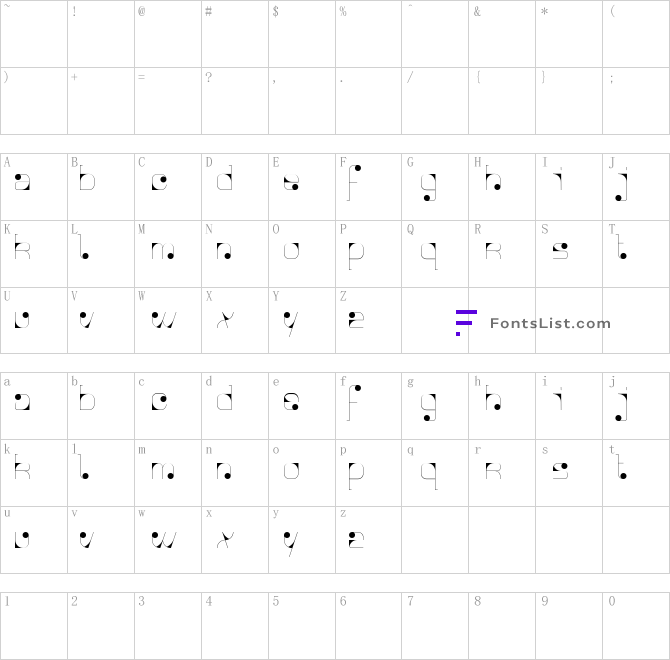
- Font Name:Agnes serif
Agnes-serif-copy-1-.ttf is a very beautiful artistic font, Agnes-serif-copy-1-.ttf is widely used in the design and printing of various books and pictures,Agnes-serif-copy-1-.ttf has a strong visual impact,Agnes-serif-copy-1-.ttf is a commonly used font in newspapers, magazines and books, and is used in posters, e-commerce Poster design, store design, logo design, font design and other fields.Agnes-serif-copy-1-.